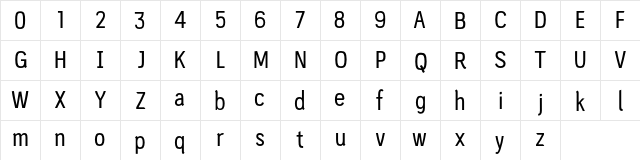
PC-Navita-Personal-Use-Only Regular
| Foundry | Parker Creative, LLC. |
| Designer | Alan Parker |
Design Context for PC-Navita-Personal-Use-Only Typeface
PC-Navita-Personal-Use-Only is a composed and adaptable typeface that performs quietly and consistently across a wide range of design contexts.